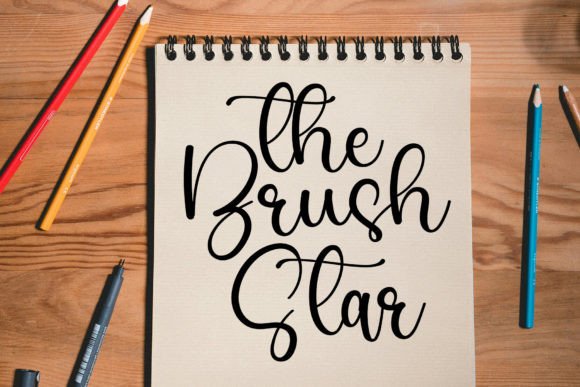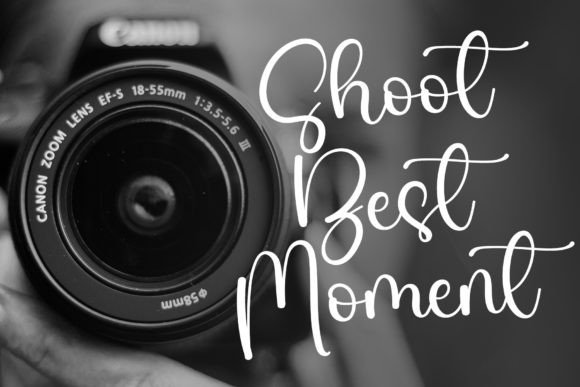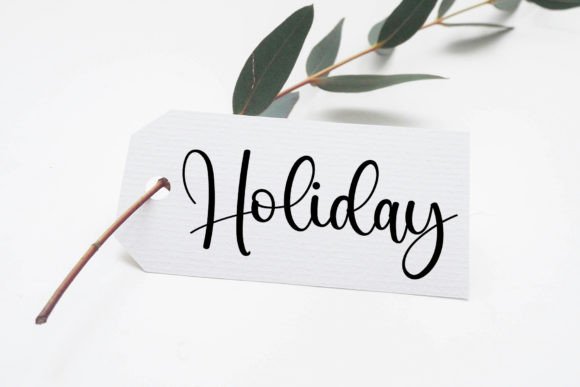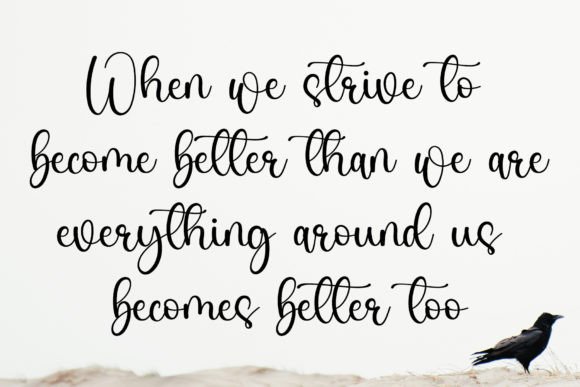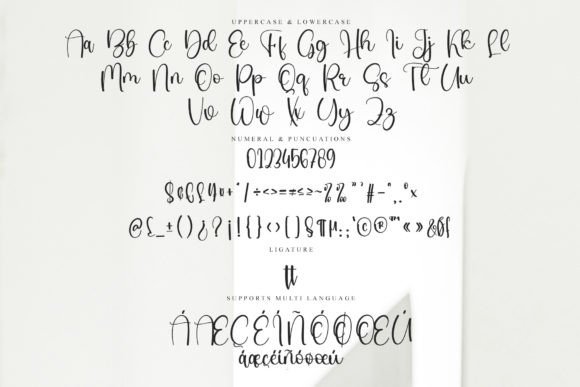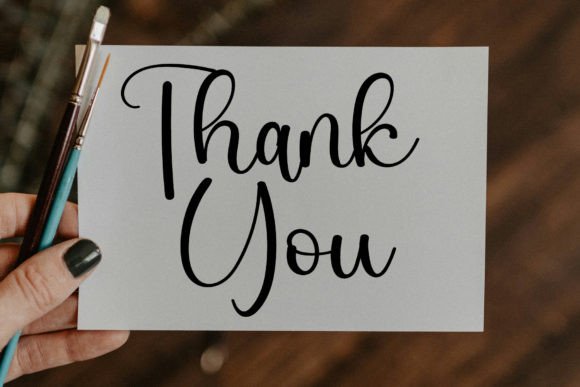
Introducing Hairstyle Font: Elevate Your Designs with Timeless Elegance
Are you a designer or crafter looking for a font that exudes sophistication and style? Look no further than Hairstyle Font, a stunning handwritten font that brings a touch of classic calligraphy to your modern projects. With its impeccable form and balanced design, Hairstyle Font is the perfect choice for anyone seeking to add a dash of elegance to their work.
The Inspiration Behind Hairstyle Font
Hairstyle Font draws inspiration from timeless classic calligraphy, bringing a sense of tradition and refinement to your designs. The font’s creator aimed to capture the essence of beautiful handwriting, infusing it with a contemporary atmosphere that makes it perfect for modern projects. The result is a font that feels both nostalgic and fresh, with a unique charm that sets it apart from more generic fonts.
Key Features of Hairstyle Font
So, what makes Hairstyle Font so special? Here are just a few of its key features:
- Contemporary atmosphere: Hairstyle Font boasts a modern feel that makes it perfect for a wide range of design projects, from branding and advertising to packaging and digital media.
- Impeccable form: The font’s balanced design ensures that it looks great in any context, whether you’re using it for headings, body text, or captions.
- Balanced and varied: Hairstyle Font features a range of characters and glyphs, giving you the flexibility to create unique and interesting text arrangements.
- Handwritten feel: The font’s handwritten nature adds a touch of personality and warmth to your designs, making them feel more approachable and engaging.
Why Choose Hairstyle Font?
With so many fonts to choose from, why should you opt for Hairstyle Font? Here are just a few compelling reasons:
- Versatility: Hairstyle Font is suitable for a wide range of design projects, from elegant wedding invitations to modern brand identities.
- Unique character: The font’s distinctive style ensures that your designs will stand out from the crowd, grabbing attention and making a lasting impression.
- Easy to read: Despite its elegant nature, Hairstyle Font remains highly legible, making it perfect for body text as well as headings.
- High-quality design: The font has been carefully crafted to ensure that it looks great in any context, with precise lines and curves that reflect its classic inspiration.
Using Hairstyle Font in Your Designs
So, how can you make the most of Hairstyle Font in your designs? Here are a few ideas to get you started:
- Branding and logos: Use Hairstyle Font to create a unique and memorable brand identity that reflects your values and personality.
- Wedding and event invitations: Add a touch of elegance to your wedding or event invitations with Hairstyle Font, perfect for formal and semi-formal occasions.
- Packaging and product design: Use Hairstyle Font to create eye-catching packaging and product designs that stand out on store shelves.
- Digital media: Hairstyle Font is perfect for digital media, including social media graphics, blog posts, and website headers.
In conclusion, Hairstyle Font is a versatile and elegant font that brings a touch of timeless classic calligraphy to your modern designs. With its impeccable form, balanced design, and handwritten feel, it’s the perfect choice for designers and crafters seeking to add a dash of sophistication to their work. Whether you’re creating branding and logos, wedding invitations, packaging, or digital media, Hairstyle Font is sure to elevate your designs and make them stand out from the crowd.